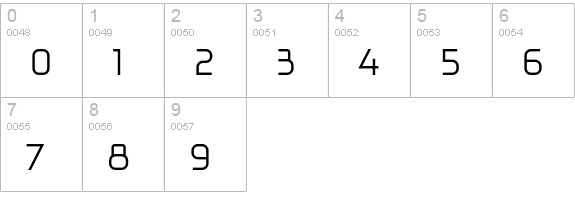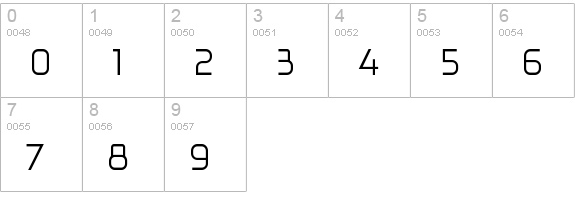
Laconic Light is a refined, elegant variant in the Laconic typeface family \xE2\x80\x94 well suited to elegant body text, refined sub-headings, and luxury branding.
Introducing Laconic Light, a breathtakingly elegant font that effortlessly combines simplicity with sophistication. Designed to add a touch of refined beauty to any project, Laconic Light is perfect for those seeking a font that exudes modernity and grace. With its clean lines and delicate curves, this font captures the essence of minimalist design, making it ideal for a wide range of applications. Whether you're creating a logo, designing a website, or crafting a stylish invitation, Laconic Light will elevate your work to new heights. But what truly sets Laconic Light apart is its versatility. It seamlessly adapts to various moods and themes, effortlessly transitioning from professional and polished to casual and approachable. Its timeless appeal ensures that it will remain a staple in your font collection for years to come. And here's the best part: Laconic Light is available for free download exclusively at FontsMarket.com. With just a few clicks, you can unlock the power of this remarkable font and infuse your projects with a touch of brilliance. Don't miss out on the opportunity to enhance your creative endeavors with Laconic Light - download it today and experience the magic for yourself.